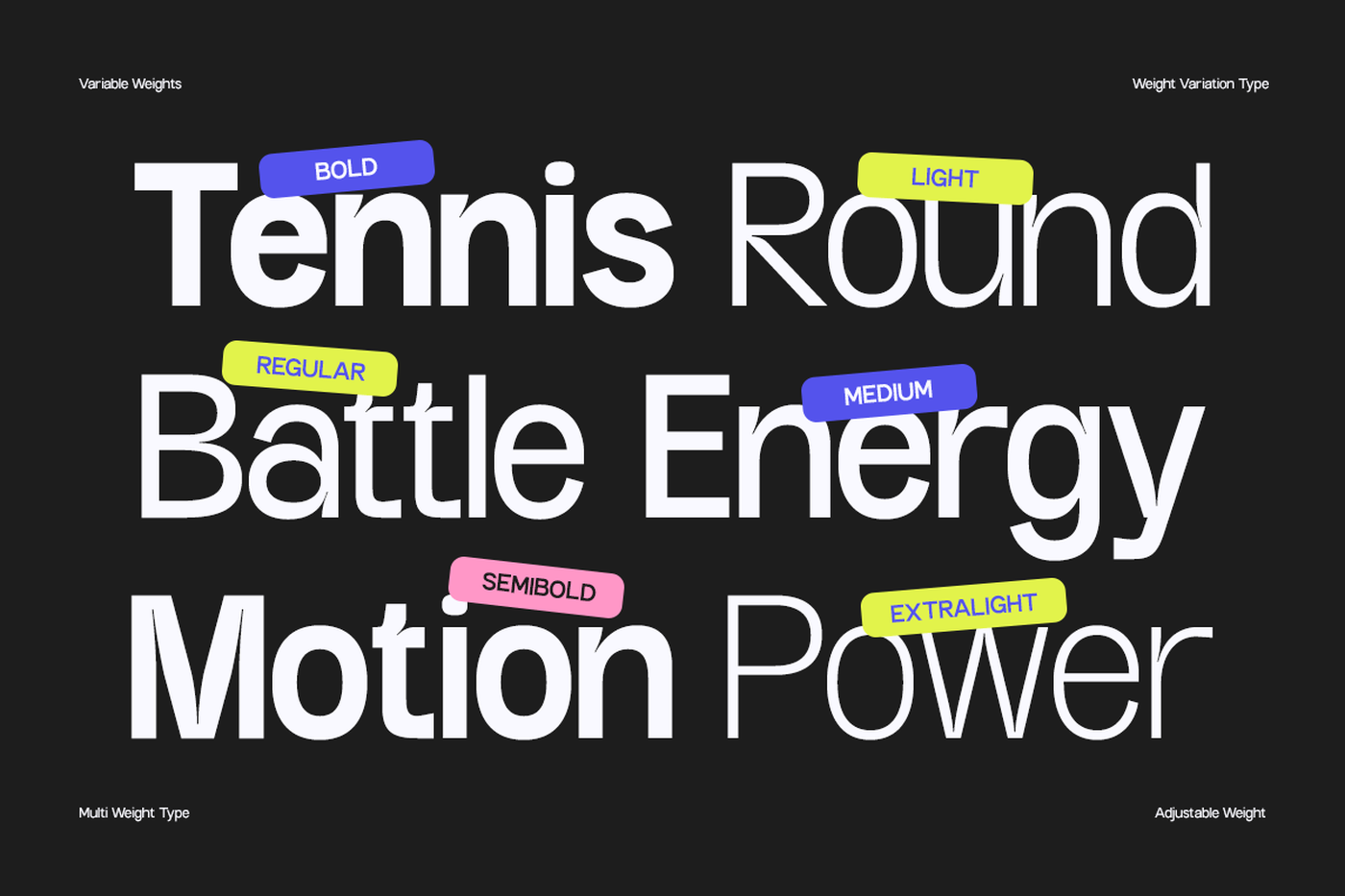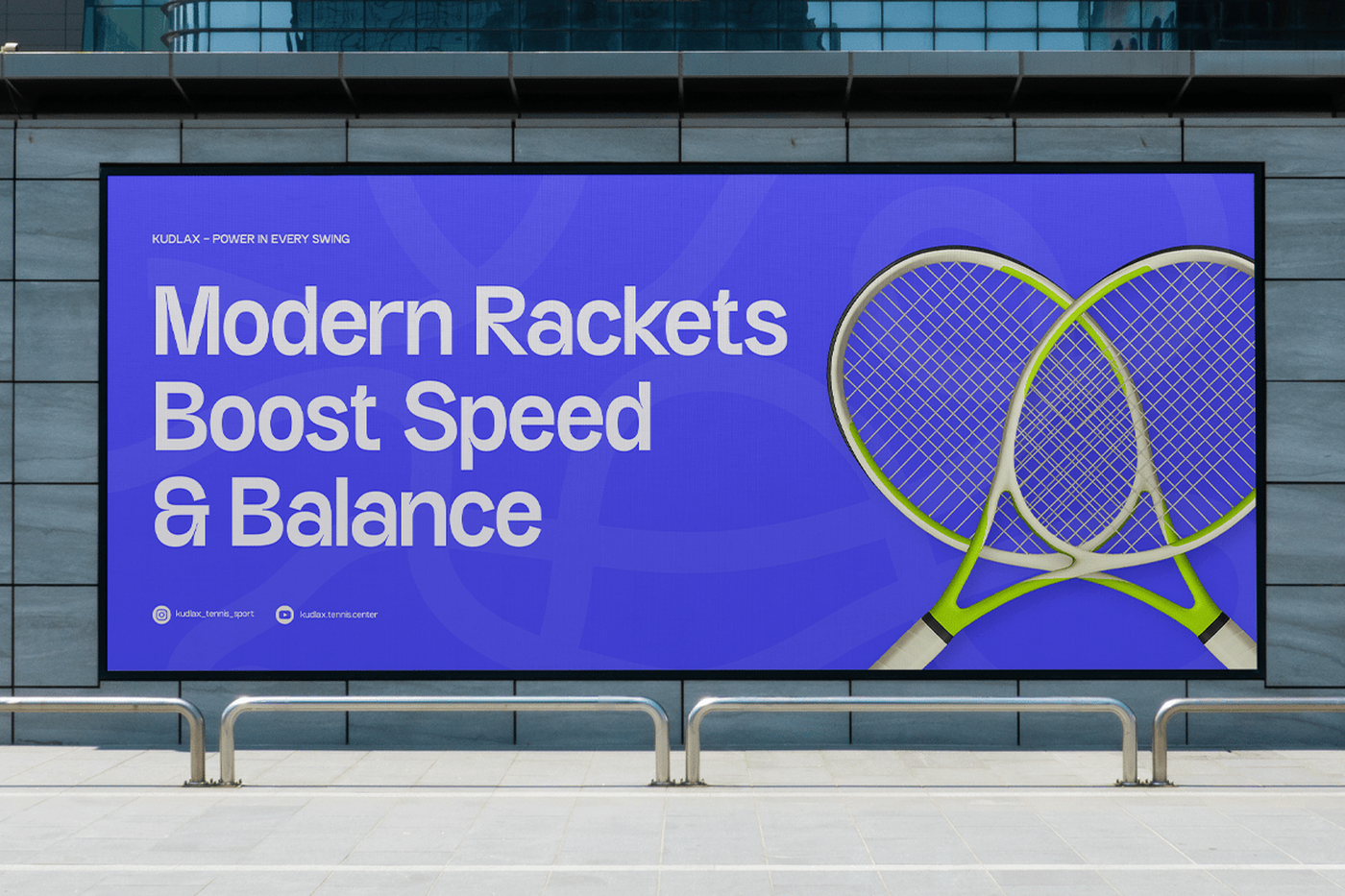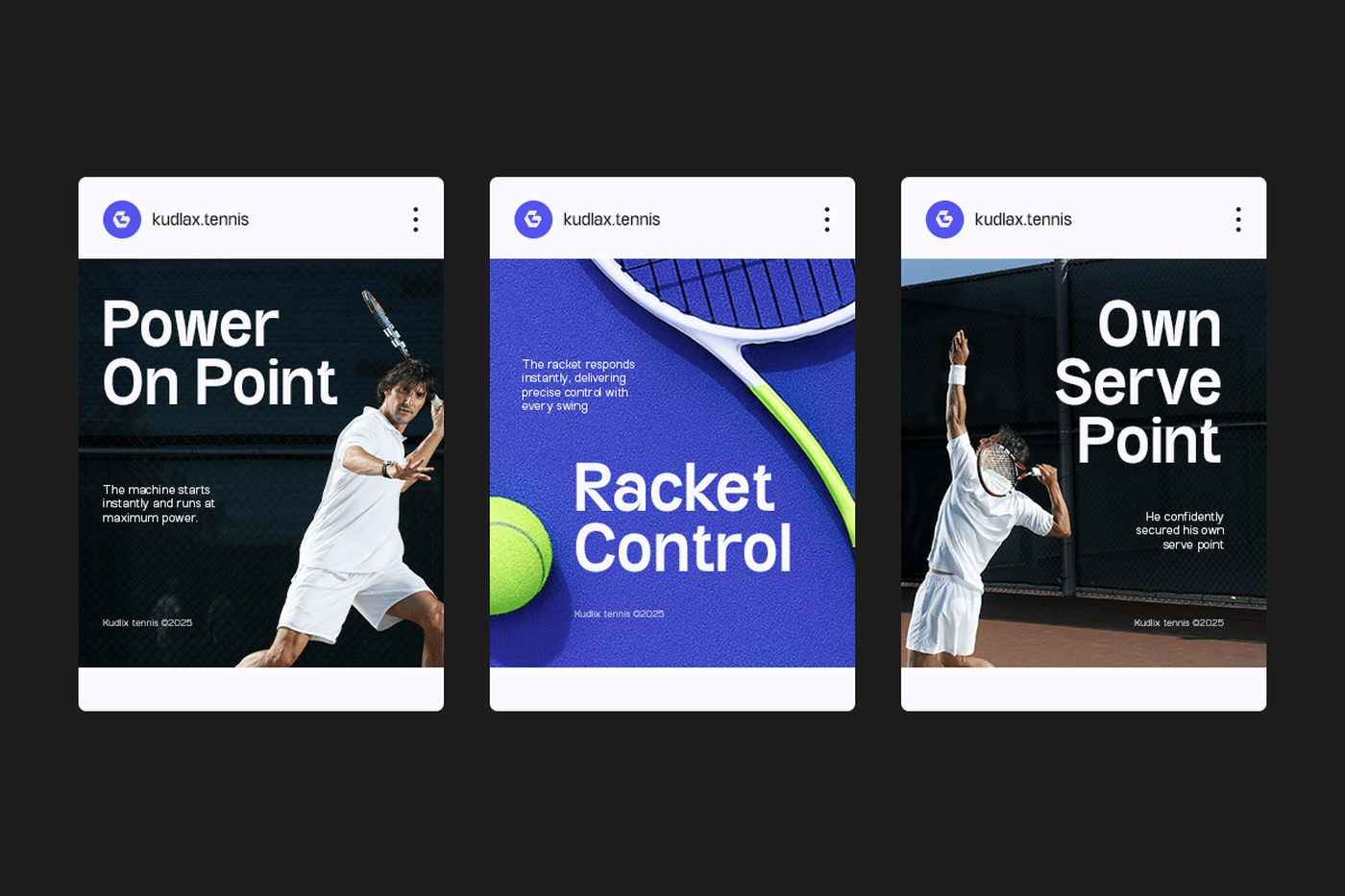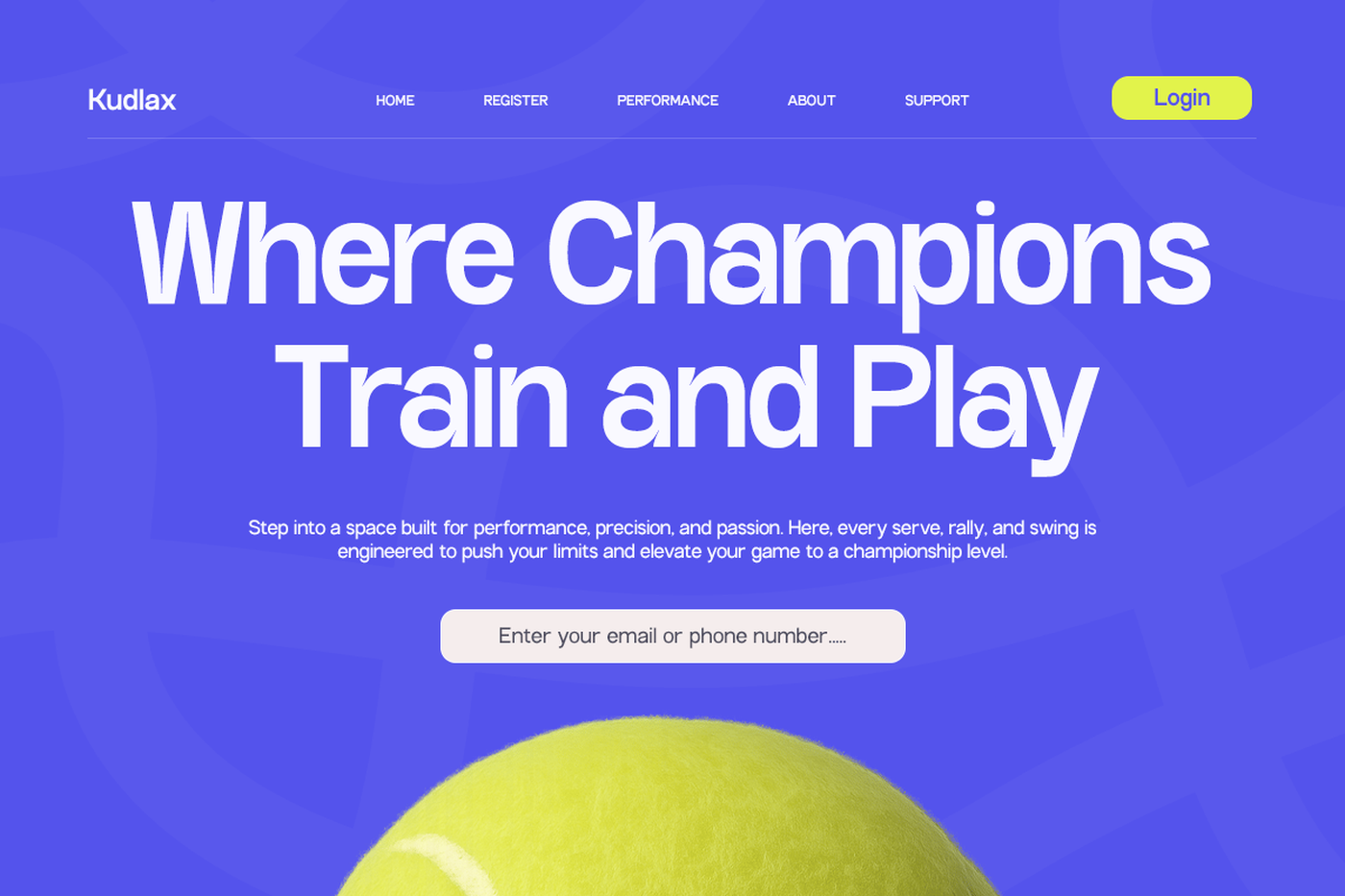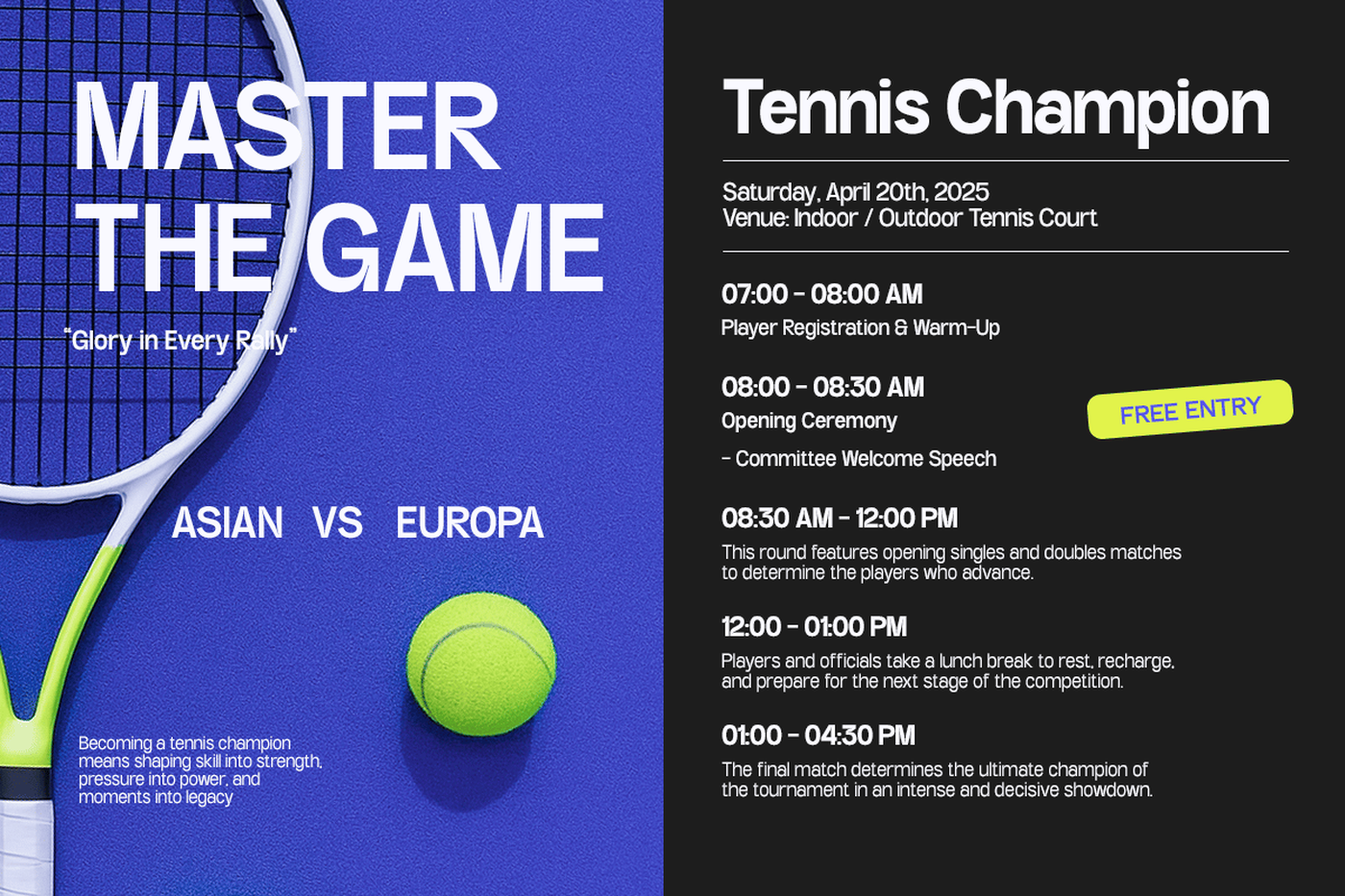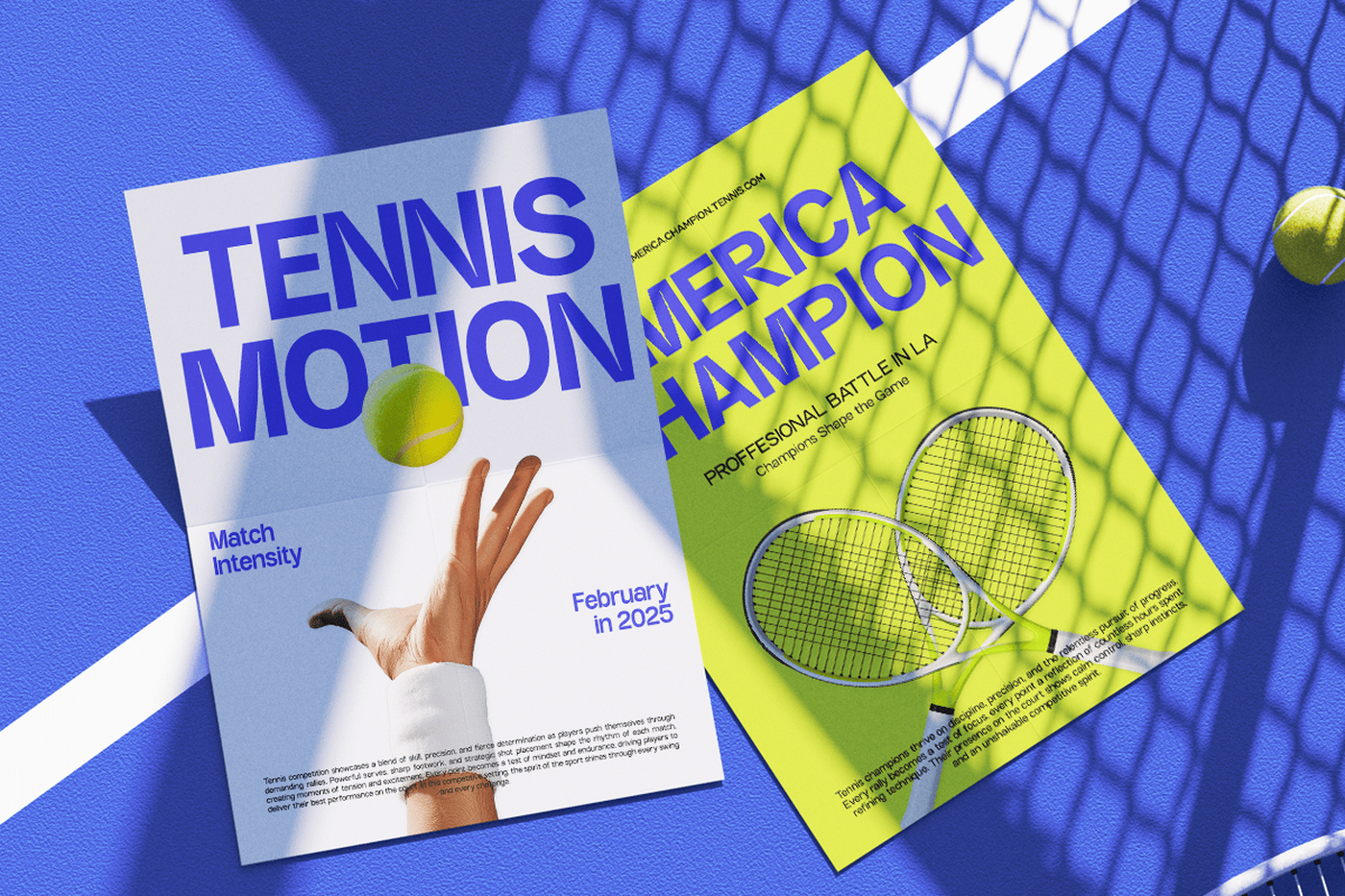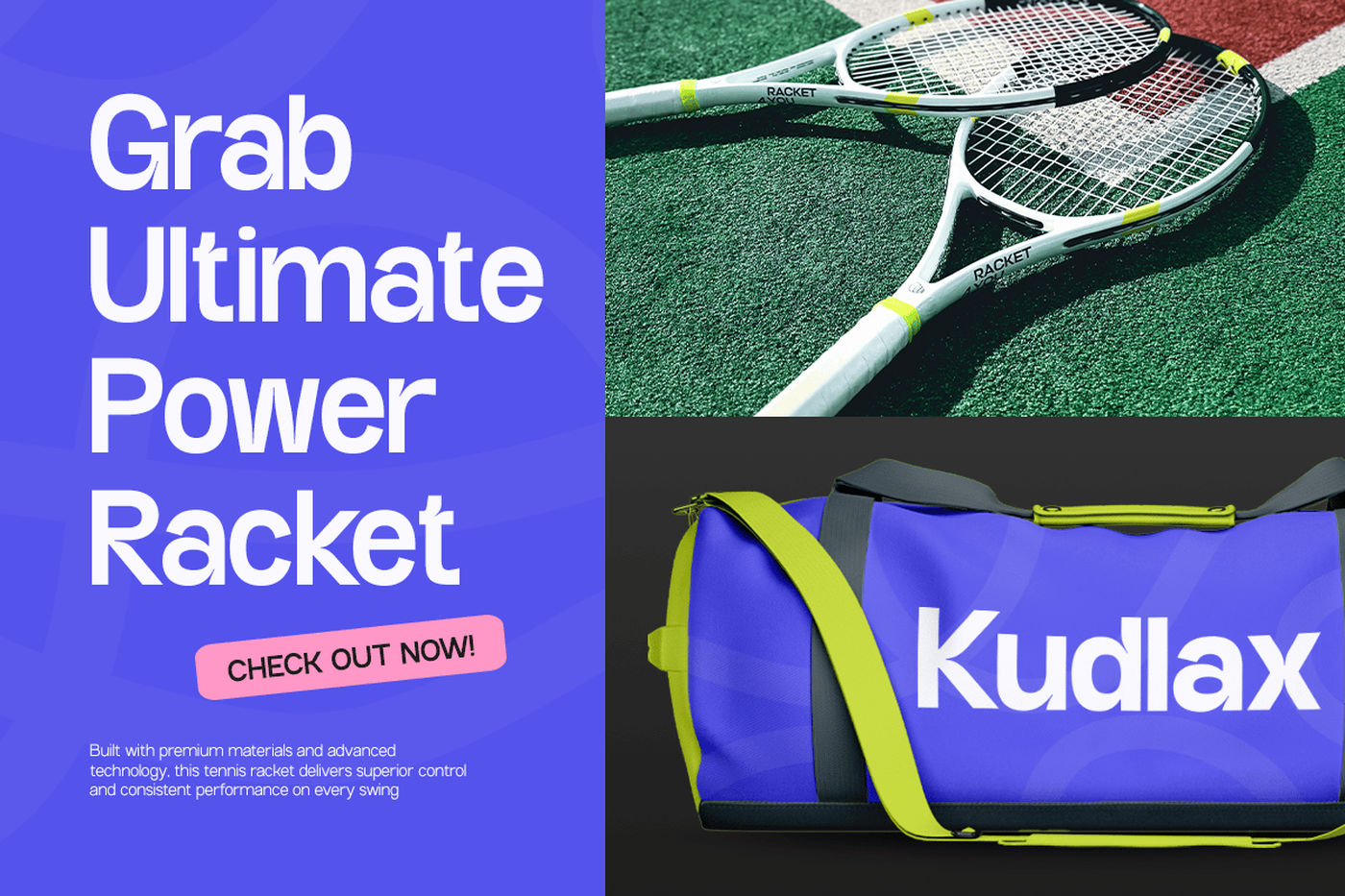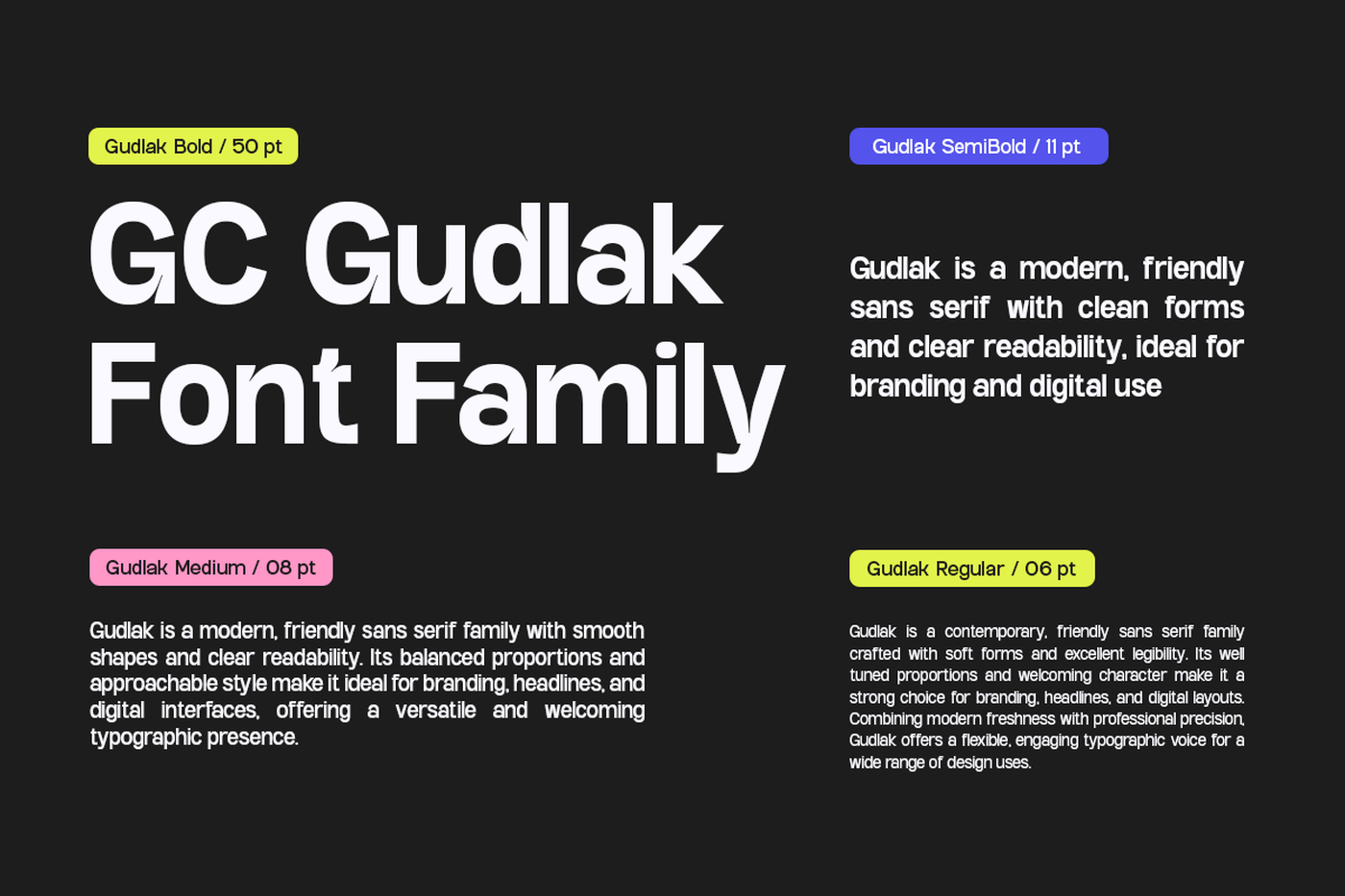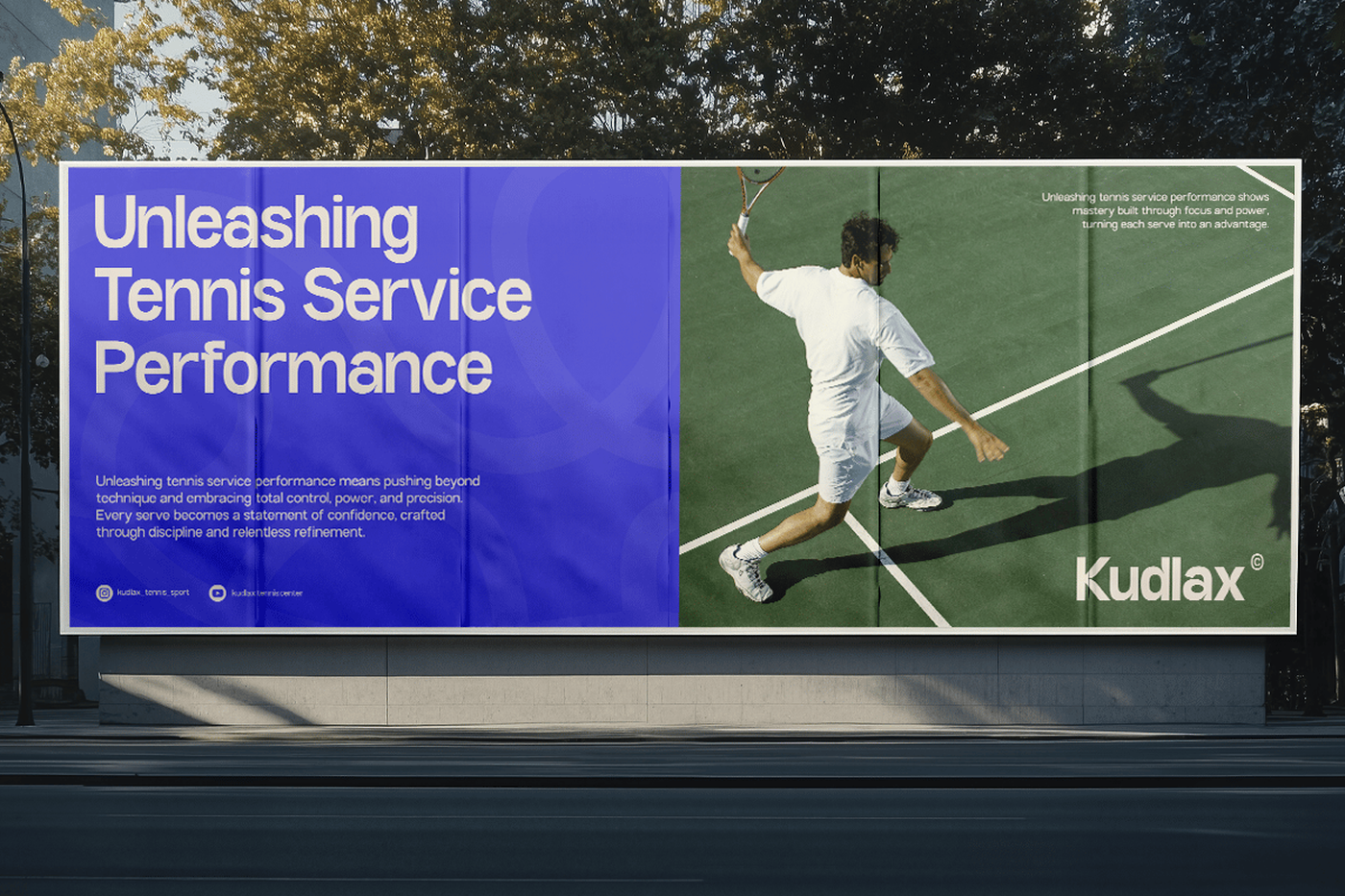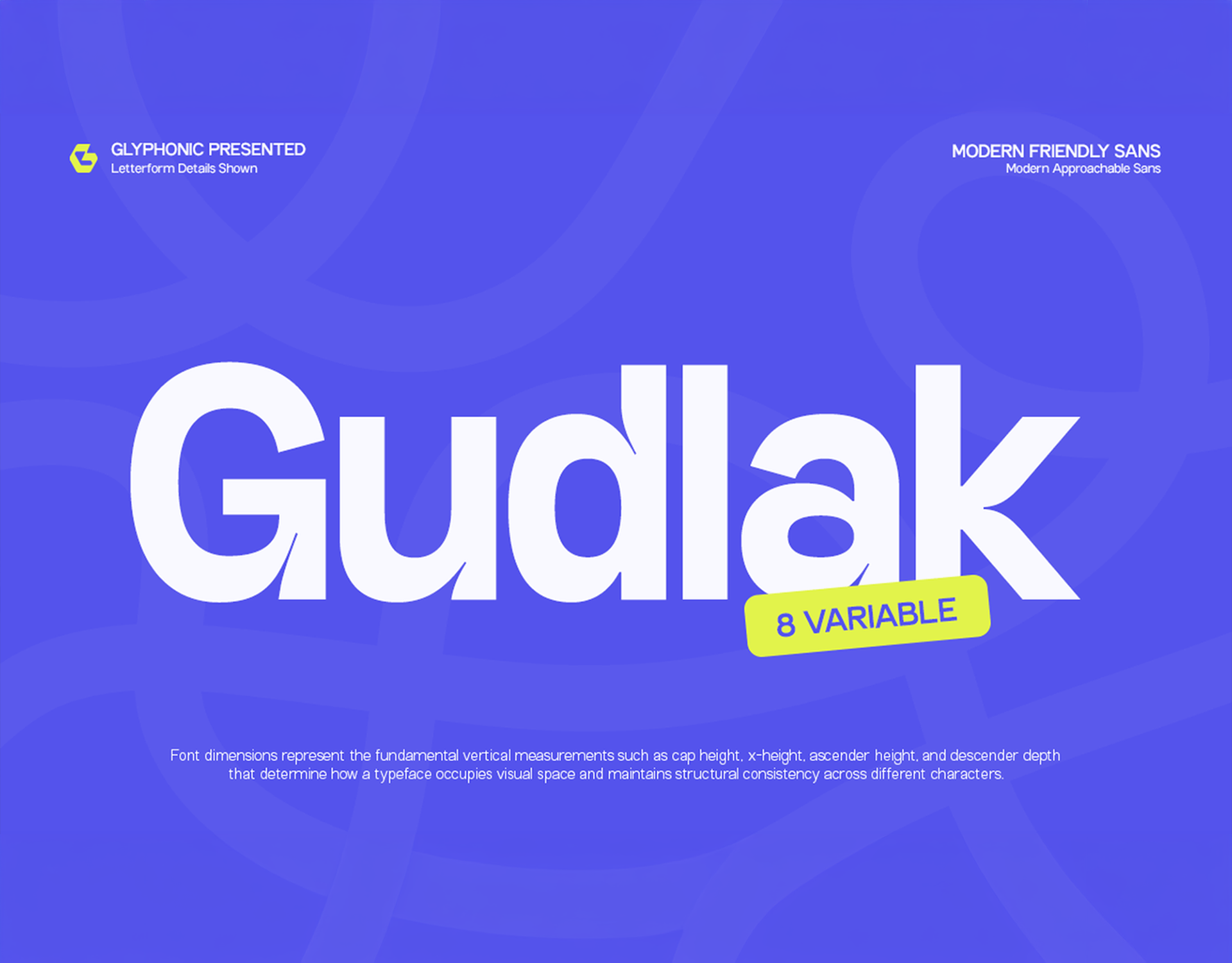
Gudlak - Playful Sans Font Family
Gudlak is a contemporary sans serif type family designed to deliver a clean, friendly, and versatile voice for modern design systems. Built with balanced proportions and smooth yet confident forms, Gudlak adapts seamlessly across a wide range of visual applications—from branding and digital interfaces to editorial and print design. As a complete font family, GC Gudlak offers a broad range of weights that support clear typographic hierarchy and consistent visual rhythm. Its well-crafted structure ensures excellent readability at both small and large sizes, making it a reliable choice for UI/UX design, modern layouts, presentations, and visual identities.